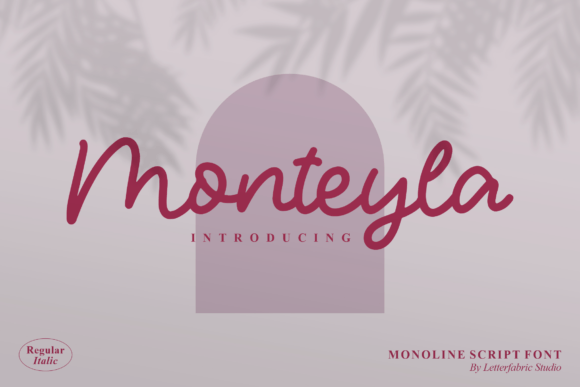
Journey into the Realm of Enchantment with Monteyla: The Script Font That Captures Hearts
In a world where words dance and stories unfold, there exists a font that transcends the ordinary, a font that weaves magic into every letterform—Monteyla. This captivating script font, crafted by the skilled artisans at Letterfabric, is an enchanting blend of elegance and playfulness, designed to bring a touch of wonder to your creative projects.
Monteyla is not merely a collection of characters; it is an invitation to embark on a journey of imagination and exploration. Each stroke, each curve, each flourish is imbued with a life of its own, beckoning you to let your creativity soar. Whether you're a seasoned designer or just starting your artistic adventure, Monteyla will guide you effortlessly, transforming your visions into captivating realities.
Immerse yourself in the allure of Monteyla's monoline elegance. Its delicate hairlines and graceful curves dance across the page, evoking a sense of timeless sophistication that will leave your audience spellbound. With Monteyla, every word you write becomes a work of art, a testament to your discerning taste and impeccable style.
But Monteyla is more than just a pretty face. It's a font that's as versatile as it is beautiful. Its inherent charm effortlessly adapts to a myriad of projects, from logos that exude sophistication to branding designs that radiate personality. Unleash your creativity and witness how Monteyla transforms homeware designs into charming accents, product packaging into irresistible treasures, and mugs into heartfelt companions.
With Monteyla, the possibilities are boundless. Quotes become poignant expressions of the soul, posters burst with vibrant energy, and shopping bags carry a touch of whimsy wherever they go. T-shirts adorned with Monteyla's script become walking statements of individuality, while book covers and name cards radiate a sense of timeless elegance.
Monteyla's versatility extends to the digital realm as well. Invitation cards and greeting cards crafted with Monteyla carry a warmth and sincerity that reaches beyond the screen. Labels designed with Monteyla's graceful touch add a touch of refinement to any product or packaging. And for those special events that deserve a touch of magic, Monteyla's enchanting script will create a lasting impression that your guests will cherish forever.
But Monteyla's allure extends far beyond its aesthetic appeal. It's a font that resonates with the human spirit, evoking emotions and stirring imaginations. Whether you're using it for photography, watermarks, or simply adding a touch of personality to your everyday projects, Monteyla has the power to transform the mundane into the extraordinary.
Join the countless creatives who have fallen under Monteyla's spell. Let its enchanting script guide you to new heights of creativity, turning your artistic visions into captivating realities. With Monteyla as your companion, you'll discover a world of beauty and wonder that exists beyond the ordinary.